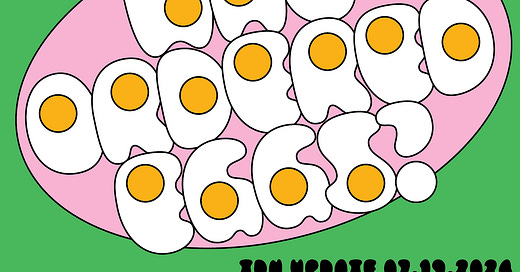
It’s good to be back. I apologize for the hiatus! I am bringing you a little Yolker update on this lovely Friday evening! Life has been a little chaotic so my work on my fave egg font is coming together in fits and spurts! Despite it all, I am happy at where this is at. Things always take way longer than I think!!
This is such a fun project to work on but is deceptively tricky. I am fighting with everything I’ve got to make it legible while keeping the “eggy” feel. It’s truly a great challenge but the letters are only really readable in the context of a word — not on their own. Don’t tell my old type west instructors!!
Basically all that is left is some punctuation marks and finessing the spacing and kerning. The final family will be a yolk, yolkless, and outline version. Personally, yolkless is my fave (and honestly the most usable)! I also made a pretty robust set of diacritics/accent marks because I want to include as many people as possible, it was really fun, and some characters are just ridiculous in egg form. I hope I did egg diacritics justice!!